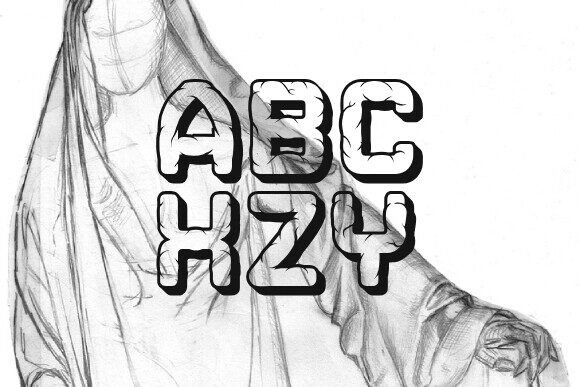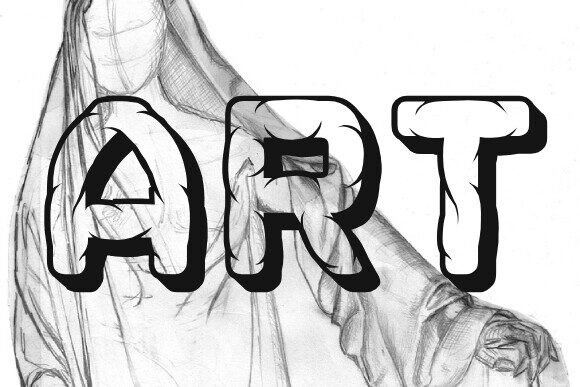
Introduction to Sculpting Font
Remember that moment when you’re working on a creative project, and you need the perfect font to bring your design to life? You’ve spent hours searching for the perfect match, but it just doesn’t seem to be there. That’s where the Sculpting Font comes in – a stunning decorative font that will elevate your designs to the next level.
This high-quality font is not only visually striking but also incredibly versatile, making it perfect for a wide range of creative projects, from posters and flyers to t-shirts and more. With its unique and intricate design, the Sculpting Font is sure to make your designs stand out from the crowd.
Key Features of Sculpting Font
- High-quality, professional font suitable for various creative projects, including graphic design, digital art, and publishing.
- Features a unique, hand-sculpted design with intricate details, making it perfect for designers looking for a distinctive and high-end look.
- Designed to work well in both digital and print media, including websites, social media, magazines, and other design materials.
Honest Review: Sculpting Font
- ✨ High-quality design: The Sculpting Font is beautifully crafted with intricate details that make it stand out from other fonts.
- ✨ Versatile: This font can be used for a variety of creative projects, from editorial design to branding.
- ⚠️ Limited language support: The Sculpting Font only supports a limited number of languages, which may be a drawback for some designers.
- ⚠️ Not suitable for all audiences: The font’s unique design may not be suitable for all audiences, particularly those who prefer a more traditional or conservative look.
Overall, I’m really impressed with the Sculpting Font and would highly recommend it to designers who are looking for a unique and high-quality font for their creative projects.
To maximize the potential of the Sculpting Font, experiment with different font sizes, colors, and styles. You can also combine it with other design elements to create a unique look.
The Sculpting Font is suitable for a wide range of creative projects, including branding, advertising, and editorial design. Its high-quality and transparent background make it an ideal choice for designers looking to add a professional touch to their work.